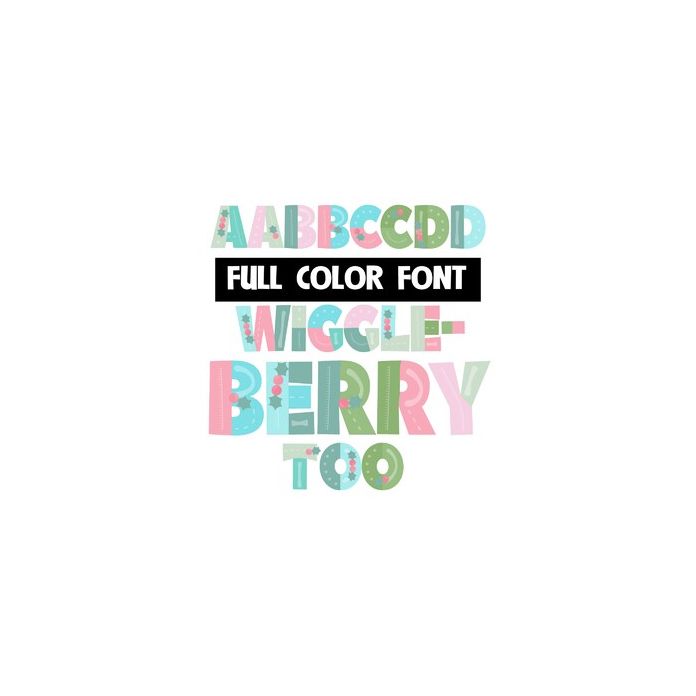
Wiggleberry Too Color Font
This full-color font features patchwork lettering and holly throughout. This font works best for titles, displays, posters and more. Please note color fonts will show as black in non compatible programs. This font type is compatible with Silhouette Studio.